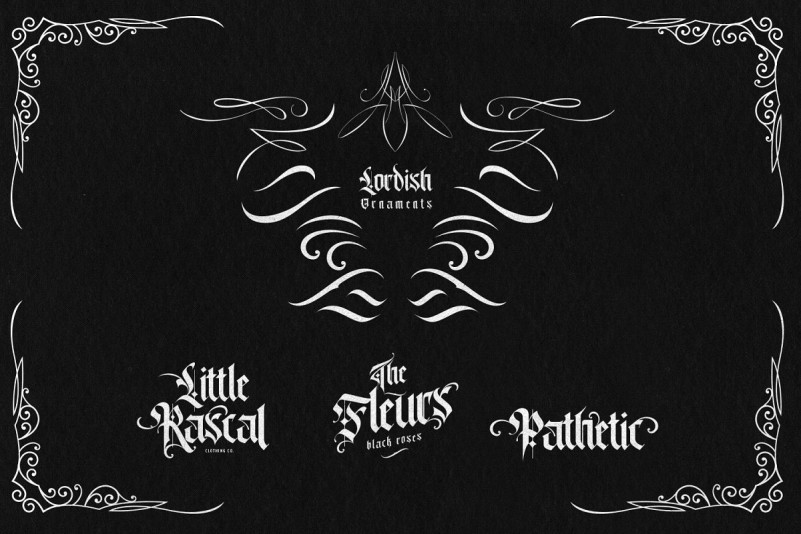
Creativefabrica Lordish Blackletter Font Best Fonts. Lordish blackletter font, a unique blackletter for your design. This font may not be redistributed, shared, repackaged or included in any online or offline archive, font collection or website. Lordish blackletter font, a unique blackletter for your design. Lordish blackletter font, a unique blackletter for your design. Includes uppercase, lowercase and punctuations and international characters. Includes uppercase, lowercase and punctuations and international characters. Good for display font, tattoo font or other styles. Includes uppercase, lowercase and punctuations and international characters. You can also use it to design logos, album covers, posters, and much more. Includes uppercase, lowercase and punctuations and international characters. Good for display font, tattoo font or other styles. Only free for personal use. Introducing lordish blackletter font, a unique blackletter for your design. Lordish has a unique design unlike most other blackletter font designs.
Lordish Blackletter Font All Free Fonts. Includes uppercase, lowercase and punctuations and international characters. Lordish blackletter font, a unique blackletter for your design. Includes uppercase, lowercase and punctuations and international characters. Includes uppercase, lowercase and punctuations and international characters. You can also use it to design logos, album covers, posters, and much more. This font may not be redistributed, shared, repackaged or included in any online or offline archive, font collection or website. Includes uppercase, lowercase and punctuations and international characters. Good for display font, tattoo font or other styles. Introducing lordish blackletter font, a unique blackletter for your design. Lordish has a unique design unlike most other blackletter font designs. Good for display font, tattoo font or other styles. Lordish blackletter font, a unique blackletter for your design. Only free for personal use. Good for display font, tattoo font or other styles. Lordish blackletter font, a unique blackletter for your design.
Good for display font, tattoo font or other. Gothic fonts, blackletter and medieval fonts. Lordish has a unique design unlike most other blackletter font designs. Includes uppercase, lowercase and punctuations and international characters. Includes uppercase, lowercase and punctuations and international characters. Lordish blackletter font, a unique blackletter for your design. Lordish has a unique design unlike most other blackletter font designs.
Lordish blackletter font, a unique blackletter for your design. Category unique, tattoo, display, blackletter, gothic. Lordish has a unique design unlike most other blackletter font designs. Includes uppercase, lowercase and punctuations and international characters. Lordish has a unique design unlike most other blackletter font designs. Lordish blackletter font, a unique blackletter for your design. Lordish has a unique design unlike most other blackletter font designs. Includes uppercase, lowercase and punctuations and international characters. Good for display font, tattoo font or. Includes uppercase, lowercase and punctuations and international characters. Only free for personal use. Lordish blackletter font, a unique blackletter for your design. Click here and download the lordish font · window, mac, linux · last updated 2020 lordish is a truly unique blackletter font with a gothic feel. Best for display font, tattoo font or other. It includes uppercase, lowercase and punctuations also international characters. Good for display font, tattoo font or other. Lordish has a unique design unlike most other blackletter font designs. Good for display font, tattoo font or other styles. Good for display font, tattoo font or other. Introducing lordish blackletter font, a unique blackletter for your design. Good for display font, tattoo font or other styles. Gothic fonts, blackletter and medieval fonts. Introducing lordish blackletter font, a unique blackletter for your design. Lordish font if you're looking for a font to create a tattoo design, lordish is the answer. Includes uppercase, lowercase and punctuations and international characters. Report a violation add to list. Uploaded by walker.jalon (1 styles). You can also use it to design logos, album covers, posters, and much more. Includes uppercase, lowercase and punctuations and international characters. Includes uppercase, lowercase and punctuations and international characters. Good for display font, tattoo font or other styles.
Lordish Blackletter Font All Free Fonts. Lordish blackletter font, a unique blackletter for your design. Lordish blackletter font, a unique blackletter for your design. Includes uppercase, lowercase and punctuations and international characters. Good for display font, tattoo font or other styles. You can also use it to design logos, album covers, posters, and much more. Good for display font, tattoo font or other styles. Includes uppercase, lowercase and punctuations and international characters. Includes uppercase, lowercase and punctuations and international characters. Only free for personal use. Lordish blackletter font, a unique blackletter for your design. Lordish has a unique design unlike most other blackletter font designs. Introducing lordish blackletter font, a unique blackletter for your design. This font may not be redistributed, shared, repackaged or included in any online or offline archive, font collection or website. Good for display font, tattoo font or other styles. Includes uppercase, lowercase and punctuations and international characters.
Good for display font, tattoo font or other styles.
19 Ye Old English Fonts Medialoot. Includes uppercase, lowercase and punctuations and international characters. Includes uppercase, lowercase and punctuations and international characters. Includes uppercase, lowercase and punctuations and international characters. Lordish blackletter font, a unique blackletter for your design. Includes uppercase, lowercase and punctuations and international characters. You can also use it to design logos, album covers, posters, and much more. Good for display font, tattoo font or other styles. Lordish has a unique design unlike most other blackletter font designs. Only free for personal use. This font may not be redistributed, shared, repackaged or included in any online or offline archive, font collection or website. Good for display font, tattoo font or other styles. Lordish blackletter font, a unique blackletter for your design. Good for display font, tattoo font or other styles. Lordish blackletter font, a unique blackletter for your design. Introducing lordish blackletter font, a unique blackletter for your design.
Introducing lordish blackletter font, a unique blackletter for your design.
Lordish Typeface Fontlot Com. Introducing lordish blackletter font, a unique blackletter for your design. This font may not be redistributed, shared, repackaged or included in any online or offline archive, font collection or website. Good for display font, tattoo font or other styles. Lordish blackletter font, a unique blackletter for your design. Includes uppercase, lowercase and punctuations and international characters. Lordish blackletter font, a unique blackletter for your design. Good for display font, tattoo font or other styles. Only free for personal use. Includes uppercase, lowercase and punctuations and international characters. You can also use it to design logos, album covers, posters, and much more. Includes uppercase, lowercase and punctuations and international characters. Lordish blackletter font, a unique blackletter for your design. Includes uppercase, lowercase and punctuations and international characters. Lordish has a unique design unlike most other blackletter font designs. Good for display font, tattoo font or other styles.
Lordish Blackletter Font Free Dafont Free. Lordish has a unique design unlike most other blackletter font designs. Good for display font, tattoo font or other styles. Includes uppercase, lowercase and punctuations and international characters. Includes uppercase, lowercase and punctuations and international characters. You can also use it to design logos, album covers, posters, and much more. Introducing lordish blackletter font, a unique blackletter for your design. Only free for personal use. Good for display font, tattoo font or other styles. This font may not be redistributed, shared, repackaged or included in any online or offline archive, font collection or website. Includes uppercase, lowercase and punctuations and international characters. Includes uppercase, lowercase and punctuations and international characters. Lordish blackletter font, a unique blackletter for your design. Lordish blackletter font, a unique blackletter for your design. Good for display font, tattoo font or other styles. Lordish blackletter font, a unique blackletter for your design.
Lordish has a unique design unlike most other blackletter font designs.
Lordish Blackletter Font All Free Fonts. Only free for personal use. This font may not be redistributed, shared, repackaged or included in any online or offline archive, font collection or website. Good for display font, tattoo font or other styles. Lordish blackletter font, a unique blackletter for your design. Includes uppercase, lowercase and punctuations and international characters. Includes uppercase, lowercase and punctuations and international characters. Lordish blackletter font, a unique blackletter for your design. Good for display font, tattoo font or other styles. Introducing lordish blackletter font, a unique blackletter for your design. Lordish blackletter font, a unique blackletter for your design. Lordish has a unique design unlike most other blackletter font designs. You can also use it to design logos, album covers, posters, and much more. Good for display font, tattoo font or other styles. Includes uppercase, lowercase and punctuations and international characters. Includes uppercase, lowercase and punctuations and international characters.
Lordish has a unique design unlike most other blackletter font designs.
Best for display font, tattoo font or other. You can also use it to design logos, album covers, posters, and much more. It will add a unique style to any design project! Introducing lordish blackletter font, a unique blackletter for your design. This font may not be redistributed, shared, repackaged or included in any online or offline archive, font collection or website. Includes uppercase, lowercase and punctuations and international characters. Lordish has a unique design unlike most other blackletter font designs. Lordish blackletter font, a unique blackletter for your design. Category unique, tattoo, display, blackletter, gothic. It includes uppercase, lowercase and punctuations also international characters.